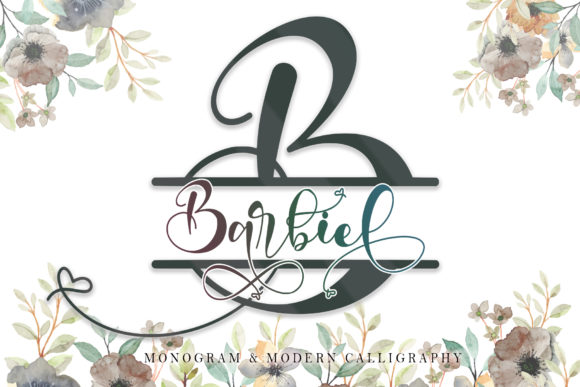
Immerse yourself in the captivating world of Barbiel, a font that exudes romance, festivity, and elegance. This enchanting script invites you to express your emotions with grace, style, and a touch of whimsy.
With its delicate curves and flowing lines, Barbiel adds a dreamy and personal touch to your creations. Perfect for holiday greetings, wedding invitations, heartfelt letters, or any project where emotions run high, Barbiel transforms words into works of art.
Beyond its aesthetic beauty, Barbiel is incredibly versatile, stretching across diverse design domains. Craft eye-catching logos that leave a lasting impression, enhance the charm of branding materials, or enchant social media posts with Barbiel's mesmerizing aura.
Enter the world of Barbiel and embrace the opportunity to add a touch of enchantment and individuality to your projects. Each character dances across the page with a life of its own, capturing the essence of handwritten elegance and sparking joy in the hearts of those who behold it.